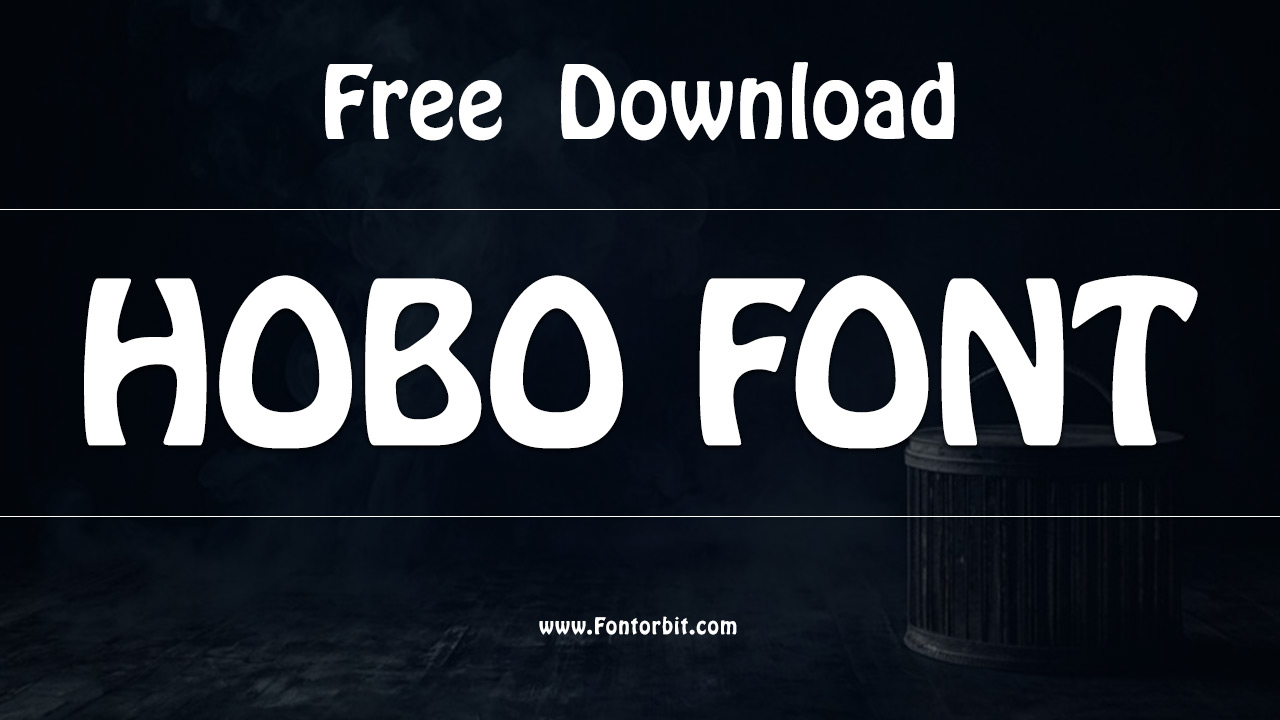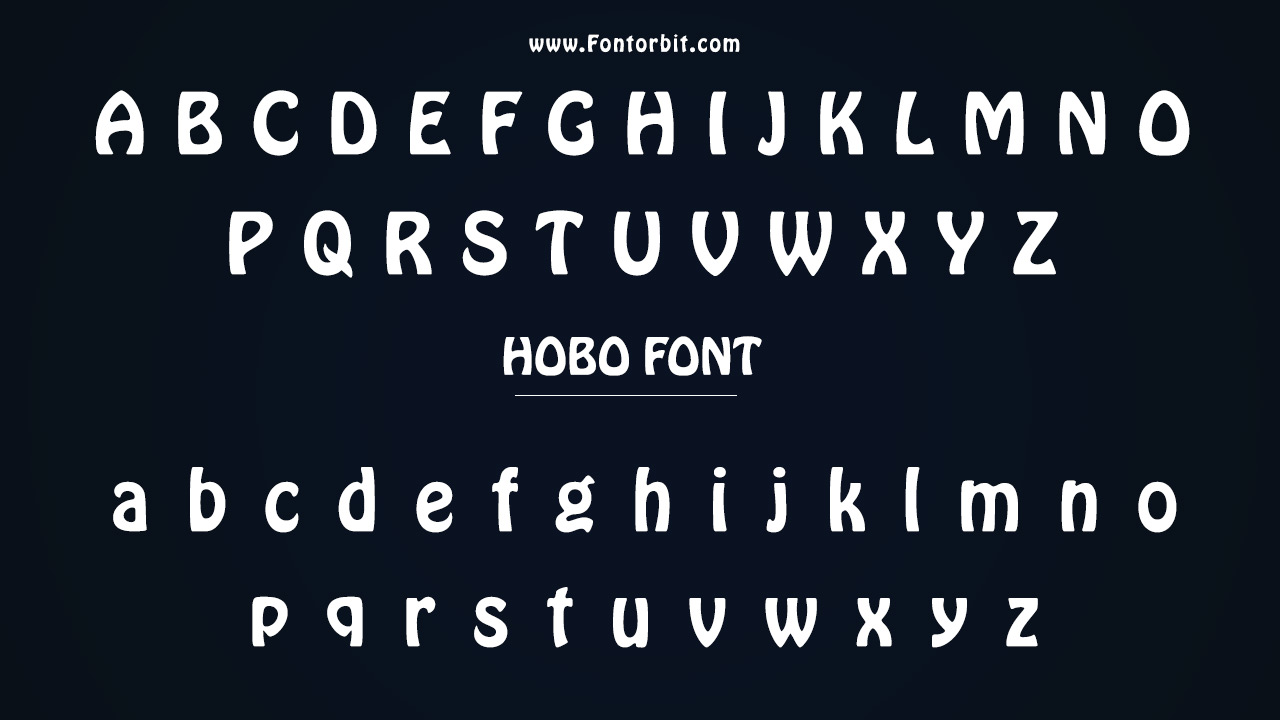
The Hobo typeface, designed by Morris Fuller Benton, was published by American Type Founders in 1910. Known for its distinctive sans-serif style with Art Nouveau influences, the font lacks straight lines, giving it a quirky and informal appearance. Hobo’s rounded edges and playful shapes have made it a standout among early 20th-century typefaces.
Hobo Family Includes
The Hobo family features multiple weights and variations, each offering its unique touch of charm. The family is ideal for adding a casual or vintage feel to designs.
- Hobo Std Regular
- Hobo Std Bold
- Hobo Std Standard (D)
Hobo works best in lighthearted and casual design contexts. Its curvaceous style complements themes of creativity, playfulness, and nostalgia. Here are a few settings where Hobo excels:
- Toy Branding
- Children’s products
- Event Invitations
- Promotional materials
- Vintage-themed designs
- Packagings
Hobo is a timeless, distinctive typeface that brings a friendly and retro feel to any design project. Its absence of straight lines and distinctive Art Nouveau charm make it stand out, offering designers a font that’s both nostalgic and playful.
1.What Makes Hobo Unique?
Its lack of straight lines and vintage Art Nouveau design elements make Hobo distinct.
4.Is Hobo Suitable For Professional Projects?
Hobo works well for playful and creative projects but may not suit formal settings.
6.What Font Family Does Hobo Belong To?
Hobo belongs to its own distinct family under the American Type Founders collection.
7.What Era Does Hobo Represent?
Hobo represents early 20th-century design, especially influenced by the Art Nouveau movement.